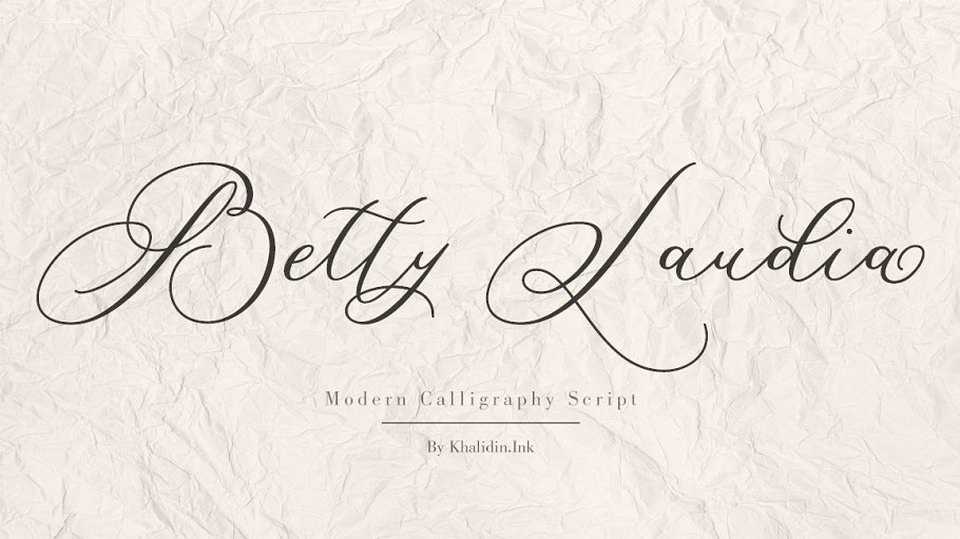
Download Betty Laudia font, a gorgeous modern calligraphy script with an irregular baseline and dancing characters to give your design an elegant feel and modern. It’s perfect for feminine, elegant, and luxurious designs.